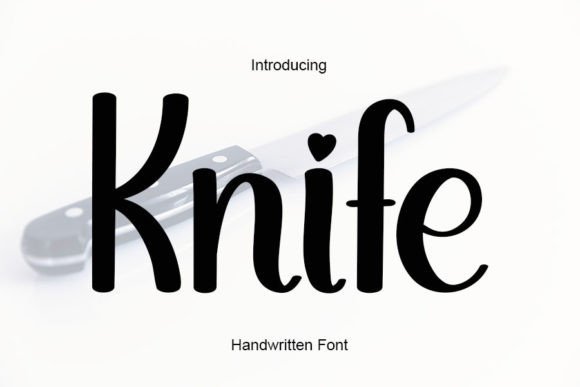
Step into the mesmerizing world of calligraphy, where every letter flows seamlessly with an elegance that will captivate your senses. Introducing Knife Font, the exquisite handwritten font crafted with a gentle touch, ready to elevate your creative endeavors to new heights.
Unleash the beauty of handwritten artistry with Knife Font, a masterpiece that combines the charm of cursive with the precision of digital design. Its graceful curves and delicate strokes will add a touch of sophistication to any project, from heartfelt letters to eye-catching branding.
Immerse yourself in the timeless allure of Knife Font. Its versatile nature makes it the perfect choice for a wide range of projects, whether you're designing an enchanting wedding invitation, creating a stunning logo, or adding a personal touch to your social media posts. Each letter exudes an aura of artistry that will leave a lasting impression.
Escape the ordinary and embrace the extraordinary with Knife Font. Let your creativity soar as you explore the endless possibilities it offers. Its elegant simplicity allows you to express your unique style, while its timeless appeal ensures that your designs will stand the test of time.
Indulge in the beauty of handwritten grace with Knife Font. Its delicate charm and versatility will captivate your audience, leaving them yearning for more. Make a statement with your designs, whether they're heartfelt messages or unforgettable visual masterpieces.
Experience the magic of Knife Font today and let your creativity take flight. Its enchanting beauty and timeless appeal will transport you to a world of limitless possibilities. Embrace the artistry of handwritten elegance and elevate your designs to new heights.